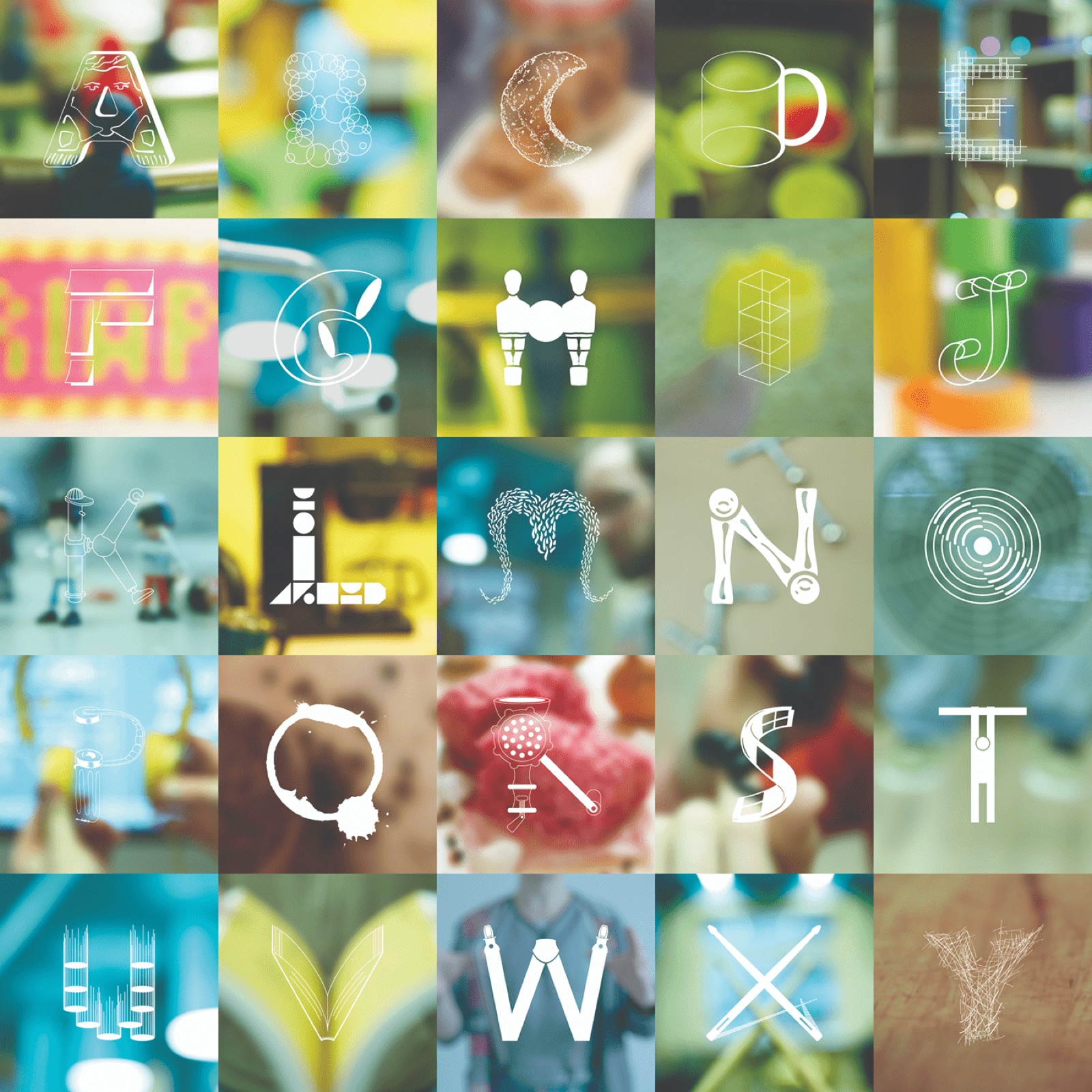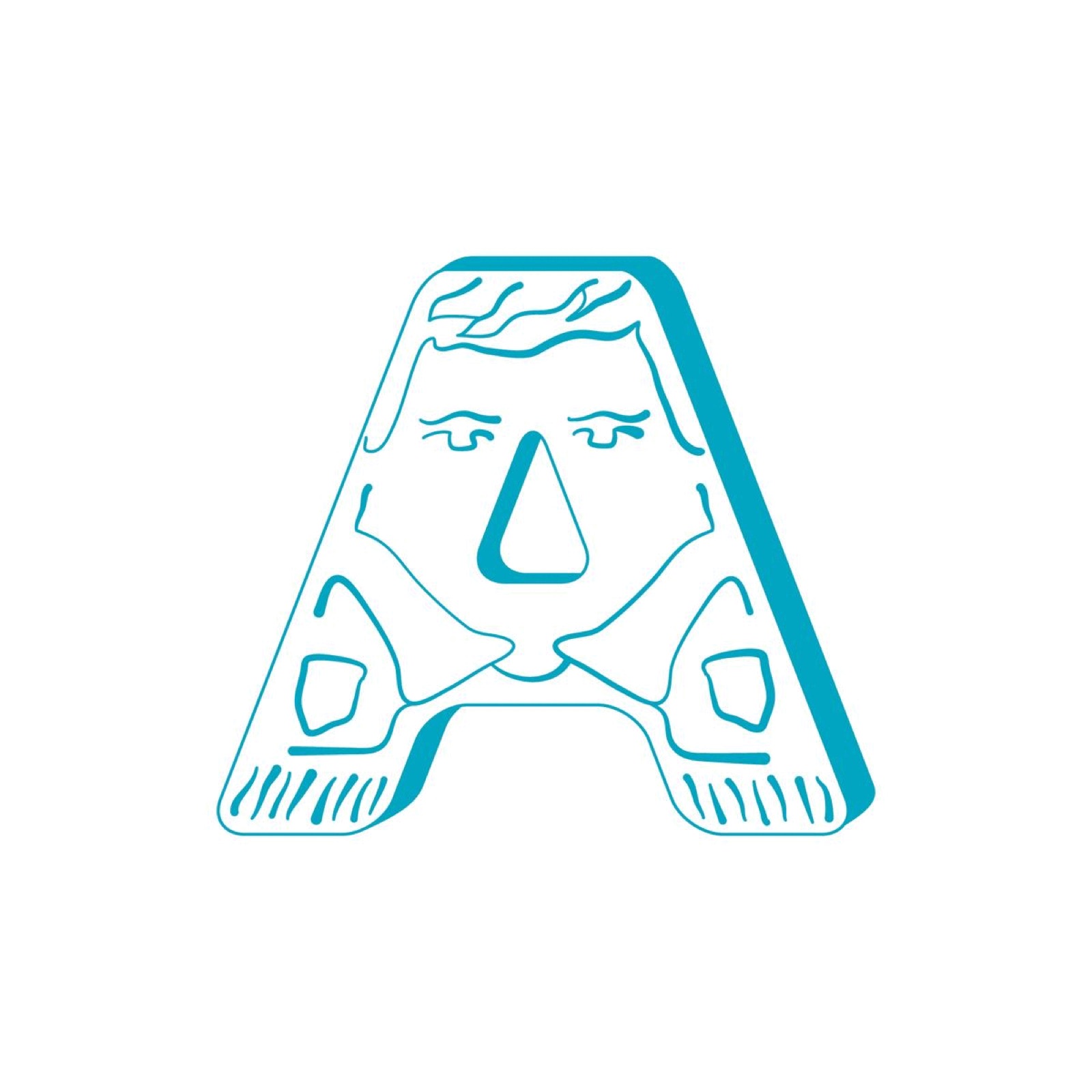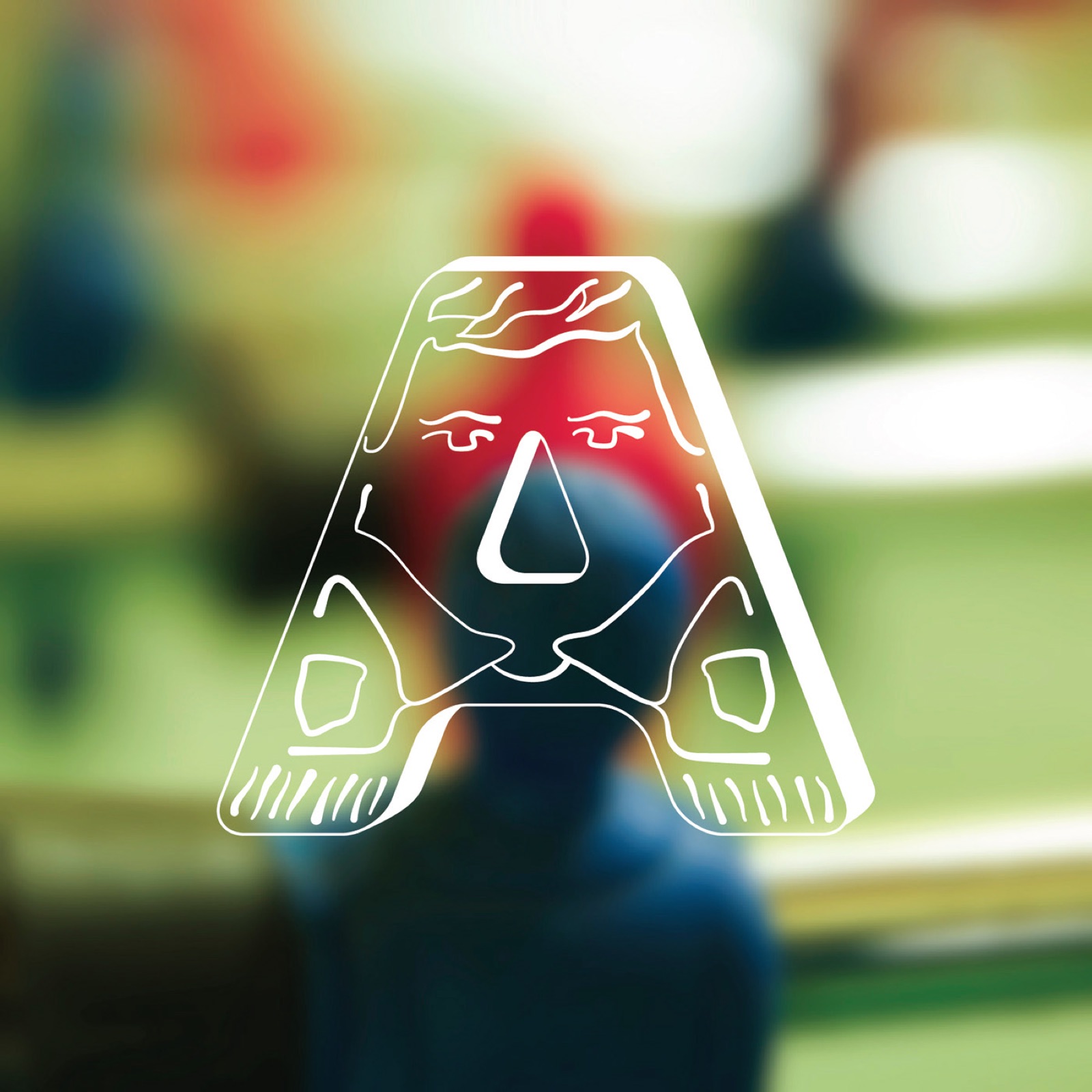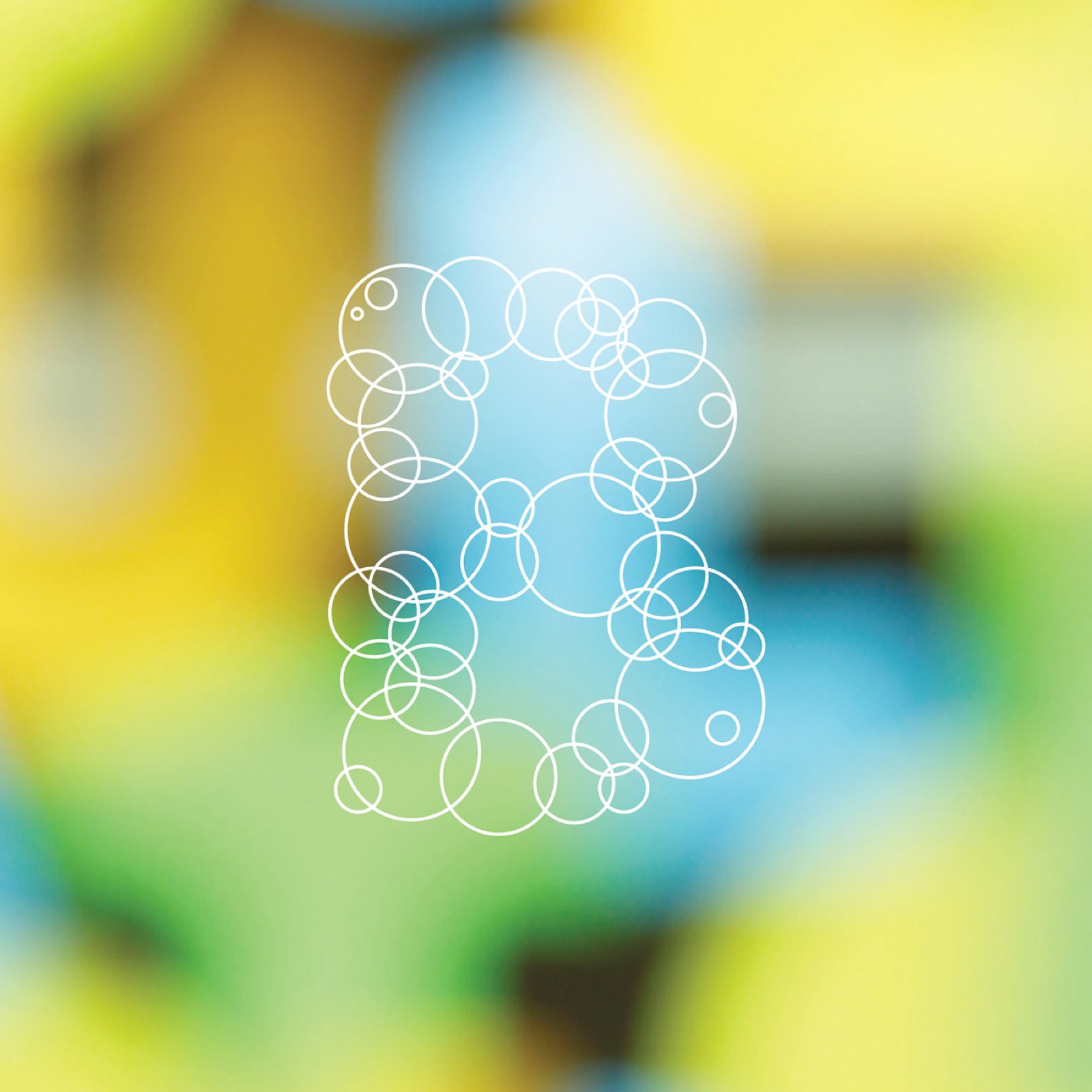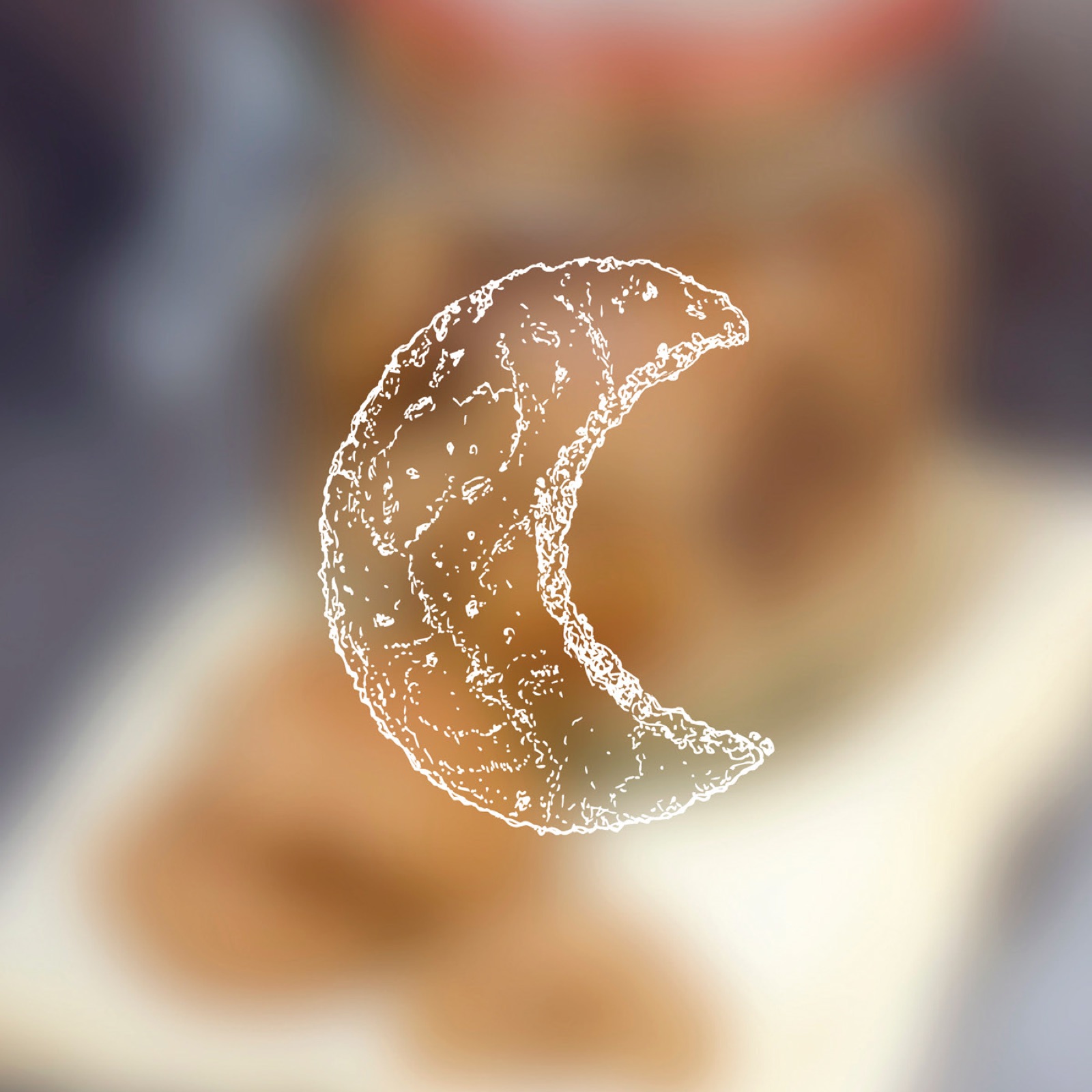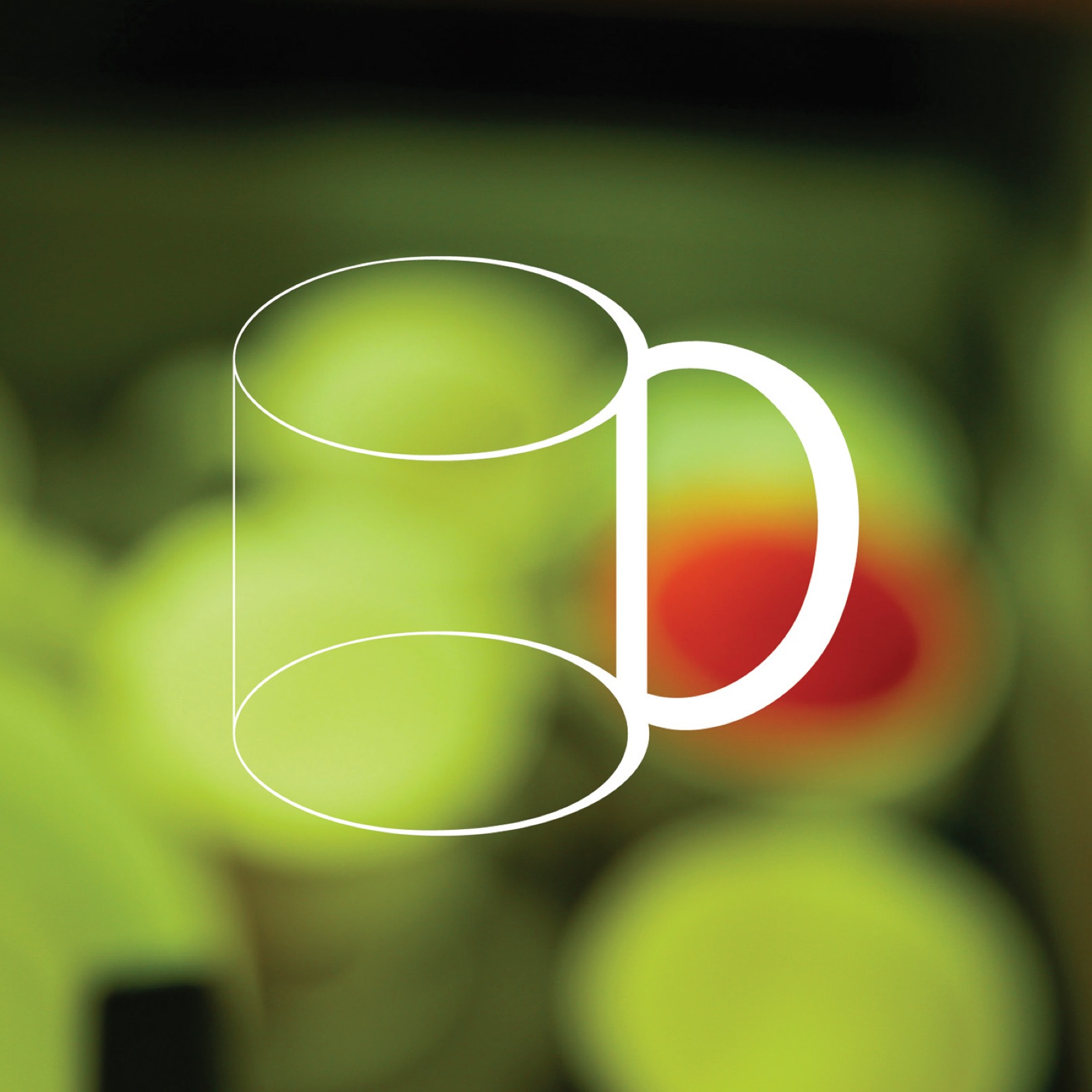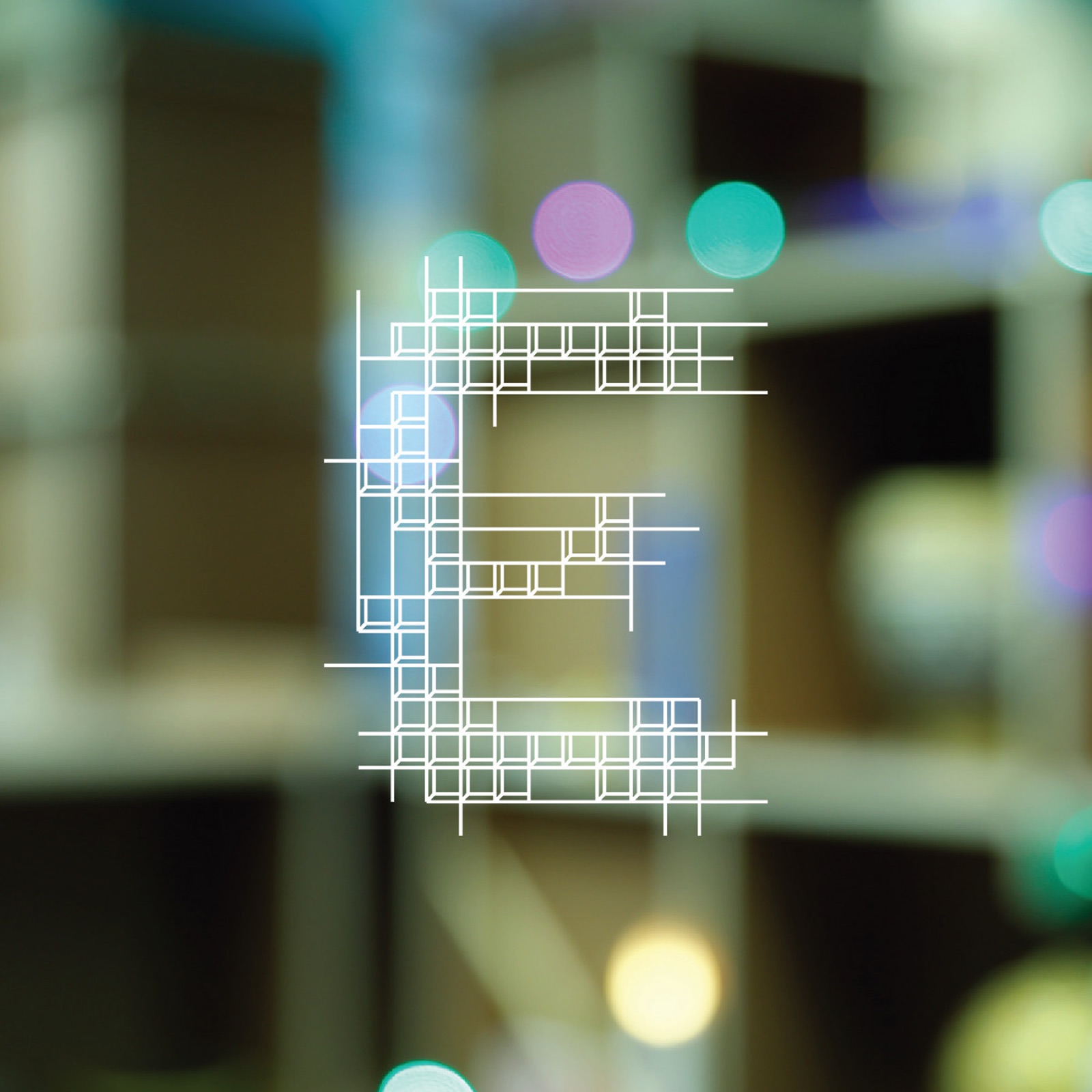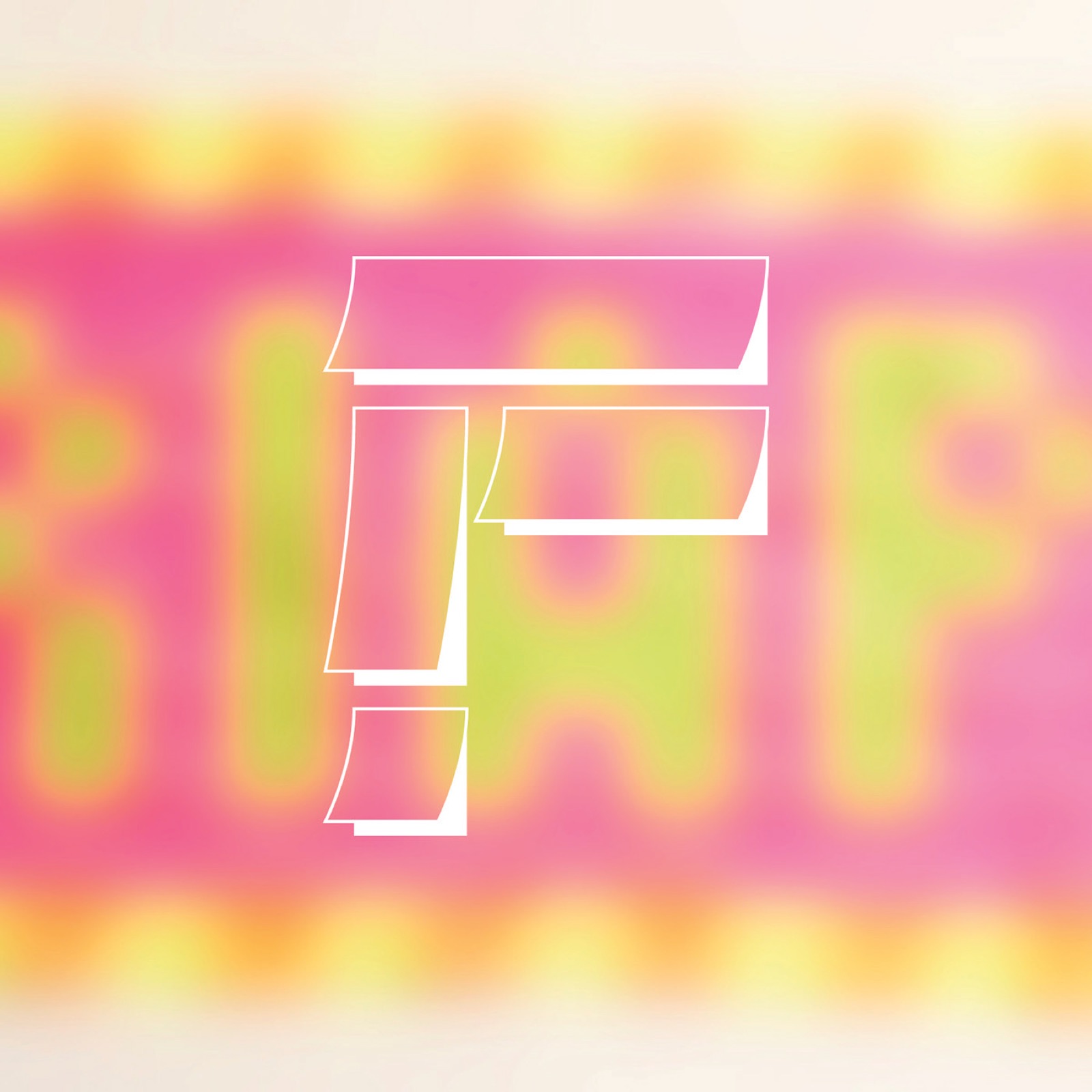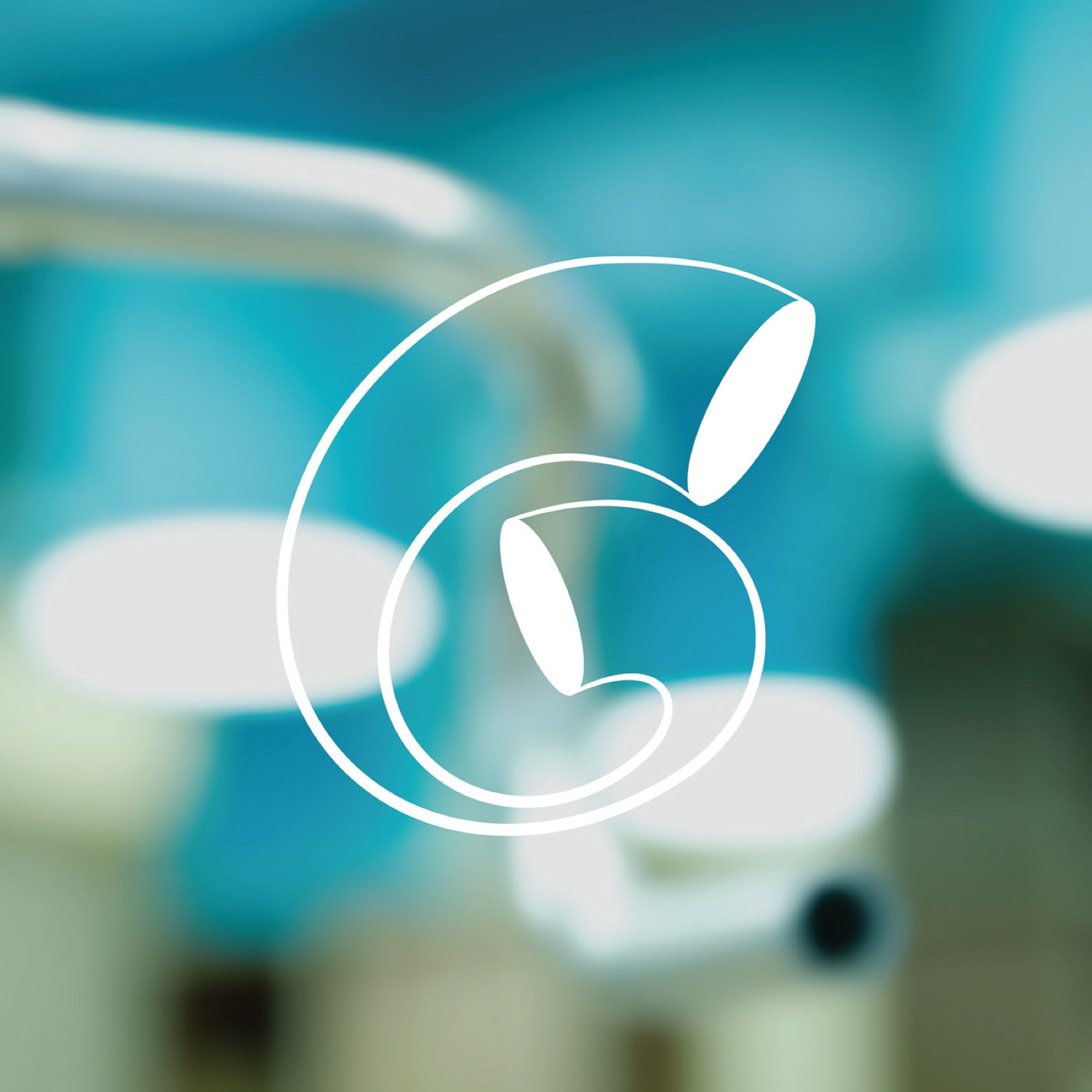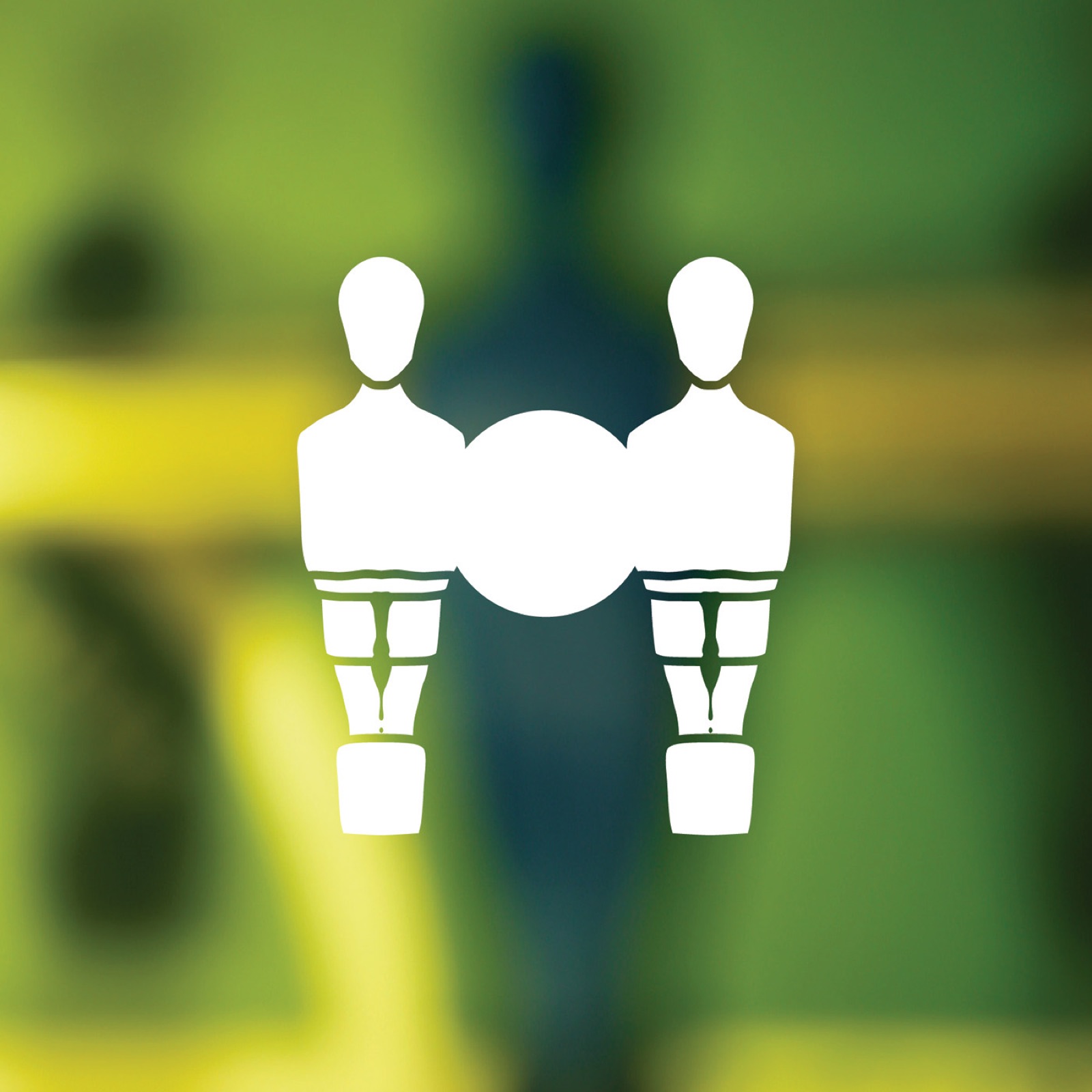
Decorative typeface
Decorative typeface is a typography project by Twelve Moons, centred on brand identity and a distinctive letterform language. The work explores how character, rhythm and custom detail can create a memorable visual identity.